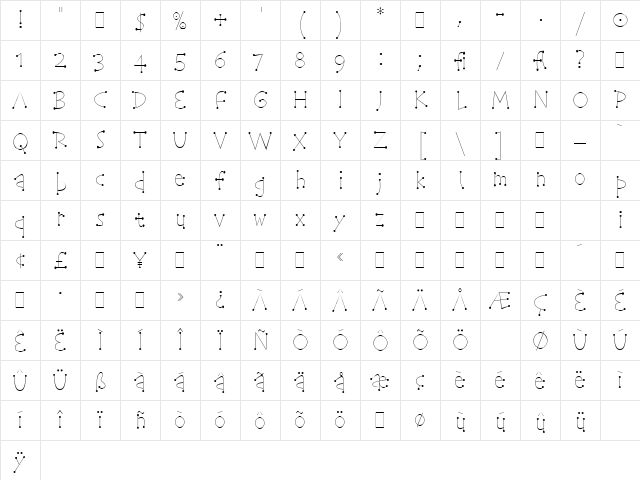
Complete Telegram LET Plain glyph index. Displaying only characters natively supported by Telegram LET Plain font.
Telegram LET is a composed and adaptable typeface that performs quietly and consistently across a wide range of design contexts.